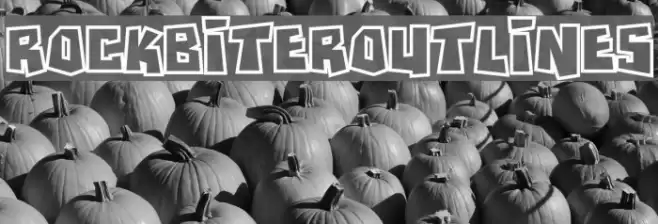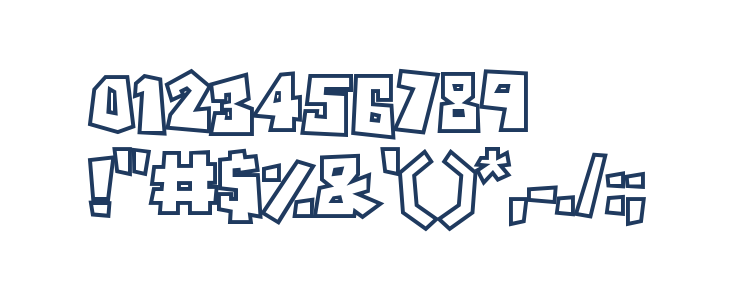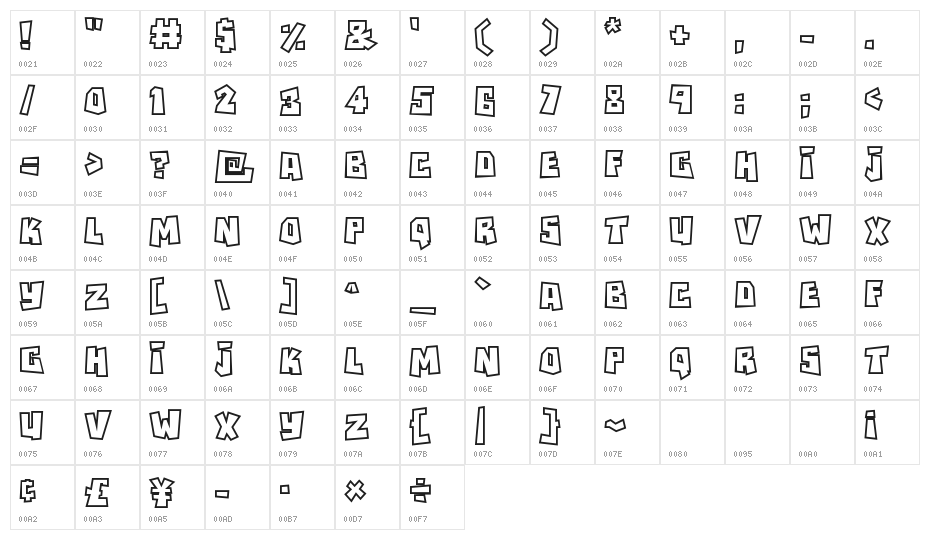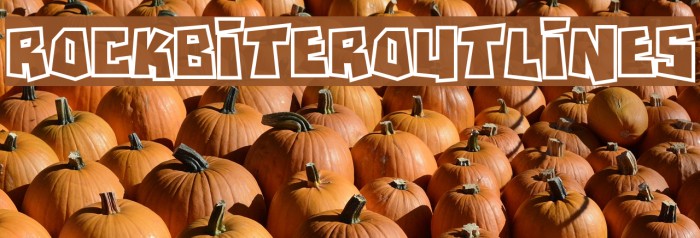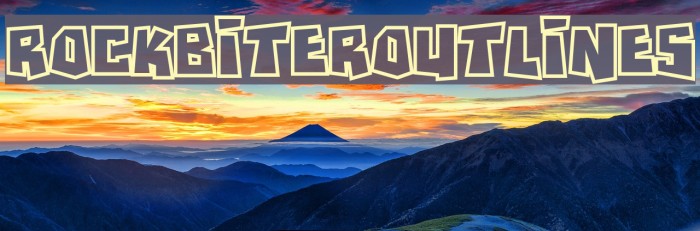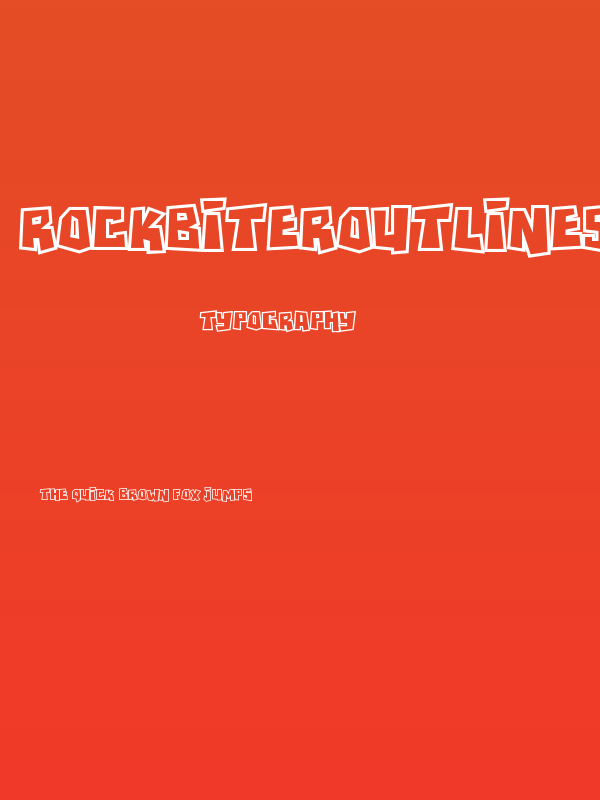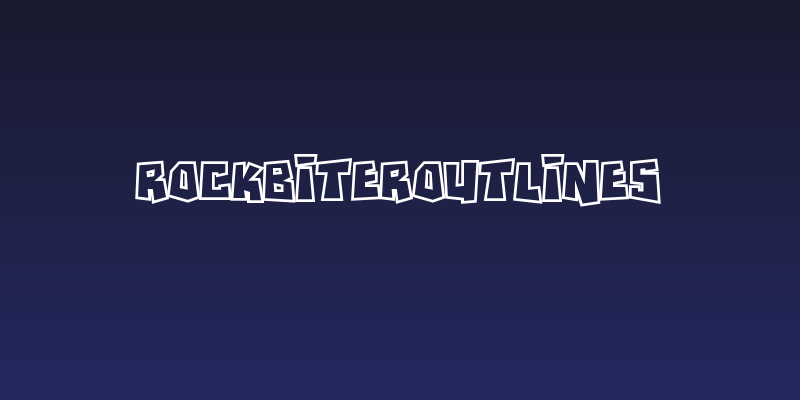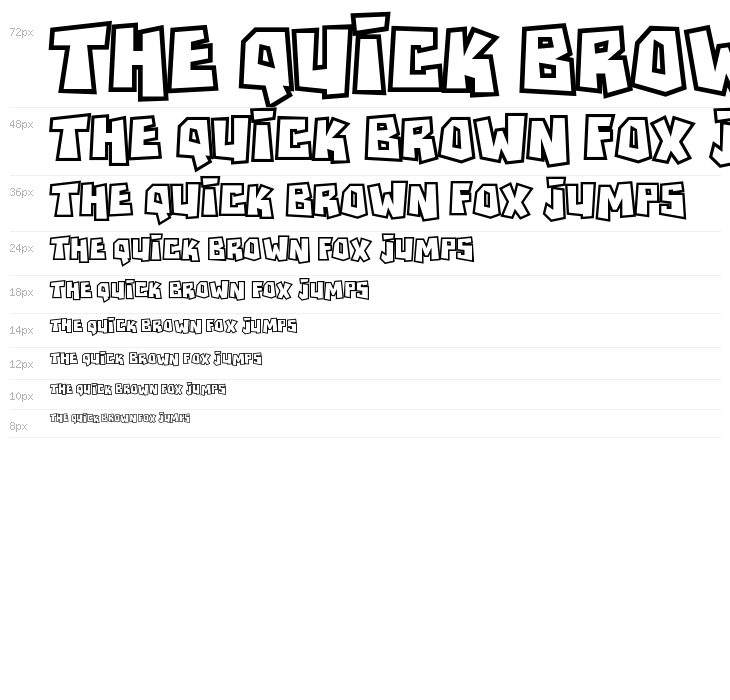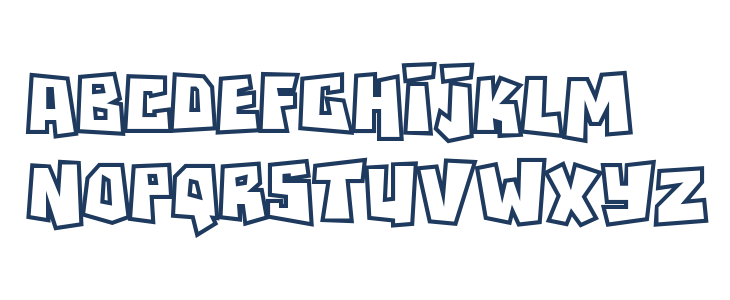
RockBiterOutlines Font
RockBiterOutlines Description
This font features a bold, outlined style with a playful and dynamic appearance. The characters are blocky and angular, giving them a strong presence on the page. Each letter is outlined, creating a striking contrast between the inner and outer edges. The font maintains a consistent thickness throughout, with sharp corners and a slightly irregular shape that adds to its quirky charm. The numbers and special characters follow the same design principles, ensuring a cohesive look across all glyphs. This font is ideal for projects that require a bold and eye-catching display.
A bold, outlined font with a playful and dynamic blocky style from Cartoon fonts.
- Proposed Projects: Great for comic books, posters, video game graphics, and any project needing a bold, playful touch.